Are there other fonts that can be used for mathematical symbols?
I have noticed, that choosing another font (via Stylesheet) does not change the math font (e.g. for greek symbols). Symbols will just stay the same most of the time. I suspect that MMA is just substituting missing symbols in the new font with the ones from "Times" (or an internal one, surely it is "Mathematica1").
Choosing "Courier" will result in different greek symbols, this is the only one I found.
Which fonts include the neccessary symbols?
Following from Mr. Wizard's post, I was able to get Mathematica to substitute Greek letters with whatever font I want by editing \SystemFiles\FrontEnd\TextResources\UnicodeFontMapping.tr. I first tried changing
Mathematica: (Mathematica1 Mathematica1Mono) Automatic
into
Mathematica: (DejaVuSans DejaVuSansMono) Automatic
which worked for changing the font, however it forced all of the symbols in Mathematica1 to be rendered with DejaVu - including things DejaVu obviously doesn't have like the line for a fraction and the \[Wolf] symbol.
So I undid that, and then just changed the Greek letters to reference font set 0 instead of 2, -2, or 4, which works so long as you use a font that supports a wide range of Greek letters.
0x0391      N       2       0x41        # \[CapitalAlpha]
0x0391      N       0       0x41        # \[CapitalAlpha]
I did this through the Sampi symbol, and now the Greek looks much better with any font. Here's my file if you want to copy it.
Here's what it will look like if you do these changes:
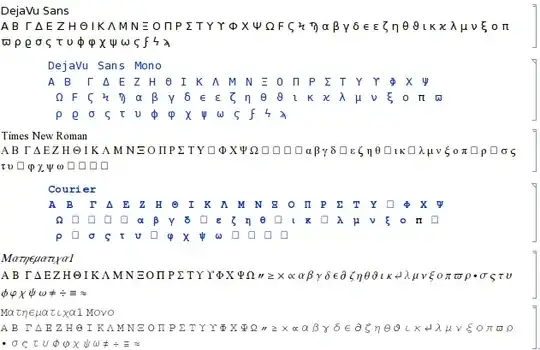
Mathematica Unicode changes
The first two are what I want Mathematica to do - display all Greek in whatever font I say just like any other text. The Text cell is in DejaVuSans, and the Input cell is in DejaVuSans Mono Plain.
The next two are what happens if you change your Unicode Mapping but don't change the default font - for Text it's Times and Input it's Courier Bolded. Notice that they're both missing some of the fancier symbols.
Finally, I have the Mathematica1 and Mathematica1Mono fonts. If you do not change your Unicode Mapping, this is what you get, Mathematica1 for Plain text, and Mathematica1 for mono spaced text. Ignore that some of the symbols are wrong here, that's my own fault.
Internally there are only two sets of Greek symbols: proportional and monospaced. These reside in the Mathematica1 and Mathematica1Mono font files.
These characters are mapped to these specific fonts in the configuration file \SystemFiles\FrontEnd\TextResources\UnicodeFontMapping.tr. Presumably any font with the appropriate glyphs could be used with the correct mapping but the result may not be pleasing as the spacing and alignment are likely to differ considerably. Should you choose to edit the file it has some descriptive comments in the header, but there are a few things that may not be obvious. The file starts like this:
@@resource UnicodeFontMapping
Mathematica: Times Automatic
Mathematica: (Times Courier) Automatic
Mathematica: (Mathematica1 Mathematica1Mono) Automatic
Mathematica: (Mathematica2 Mathematica2Mono) Automatic
Mathematica: (Mathematica3 Mathematica3Mono) Automatic
Fonts are given identifiers based on the line on which they appear. Mathematica1 is on the third line after the @@resource header, and counting from zero it is therefore given the identifier 2. The file goes through 15 by default but I believe you an add additional fonts in this manner.
The letter alpha is mapped by this line:
0x03B1      N       -2      0x61        # \[Alpha]
I believe the fields are:
1. The Unicode code point used in the Notebook
2. A letter designating the type of character, e.g. (N)ormal, (V)ertical spanning, (H)orizontal spanning, and (D), used for Overscript and Underscript but the naming of which I cannot guess.
3. The identifier described above. I have yet to determine the significance of the -.
4. The code point of the actual glyph within the font file.
5. A comment delimited by #, reminding of the default FullForm mapping.
The - sign indicates that we shouldn't be using the Mathematica fonts when we're in Greece. The Mathematica fonts are just a nightmare if you actually want to communicate in Greek, but Unicode makes no distinction between mathematical and lingual uses of Greek (except for epsilon, which evolved into two separate characters...and don't think that didn't cause a stir back in the day when the Unicode committee screwed it up, then majorly broke backward compatibility to fix it). I discovered recently that the "in-Greece" feature didn't seem to be working as expected on Mac v9, so YMMV. – John Fultz Feb 15 '13 at 22:33
This resource file is going to undergo a major overhaul in a future release, incidentally. Unicode support in Mathematica mostly predates Unicode support in operating systems, and some things are going to be changing. So don't expect this file format to be future-proofed. – John Fultz Feb 15 '13 at 22:35
• Thanks @Mr.Wizard, I was just trying to get JohnFultz 's attention since i dont see an e-mail or message option from 1 user to another. – Zlatko-Minev Apr 01 '13 at 19:48
• It seems that @JohnFultz's predictions came true - as of v10.4 there no longer is a UnicodeFontMapping.tr file in the installation. Hopefully John can comment on what's changed, and how to achieve the functionality asked for in the question in more recent versions of Mathematica? – Emilio Pisanty Jun 09 '16 at 12:43